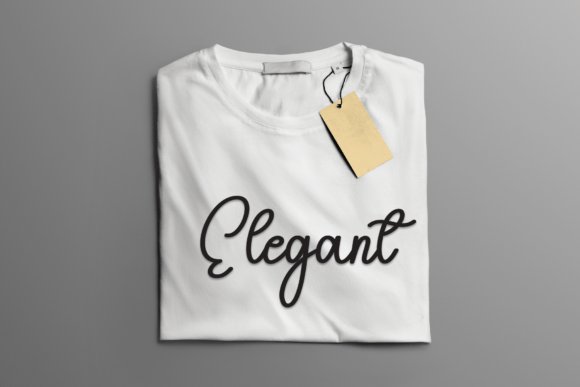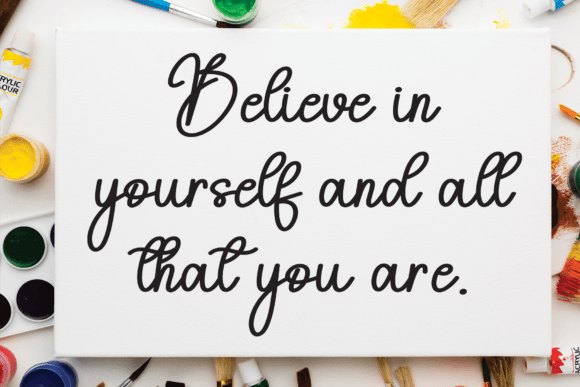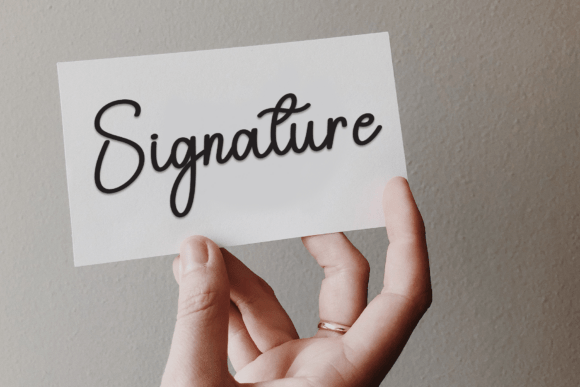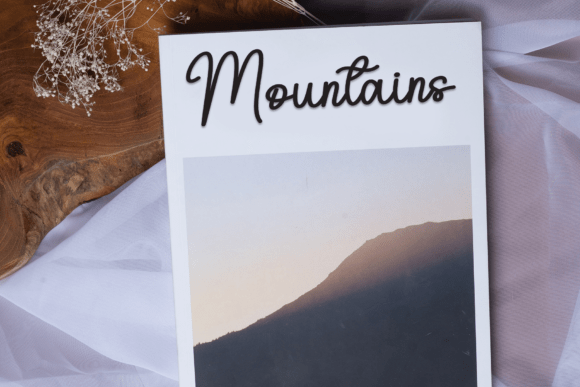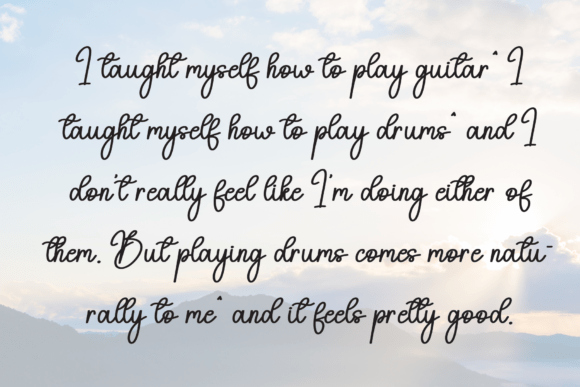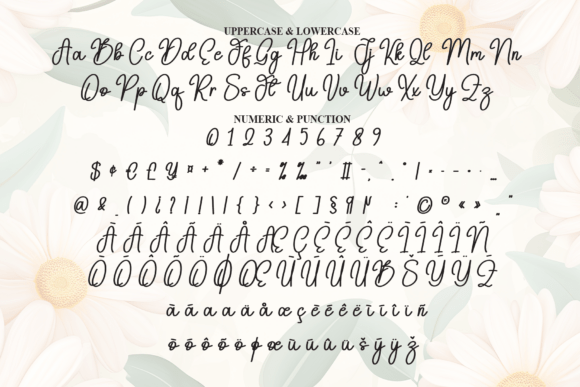
The Sweet Spot: Discovering the Delightful Daisy Font
I’ll never forget the time I was working on a wedding invitation project, and my client asked for a font that was “sweet, playful, and romantic.” I scoured the internet, tried out dozens of fonts, but nothing seemed quite right. That was until I stumbled upon the lovely Daisy Font. It was like a breath of fresh air – charming, friendly, and infused with a warmth that perfectly captured the essence of the occasion. In this article, I’ll share my experience with Daisy Font, its features, and how to make the most of it in your designs.
- ✨ Delightfully friendly and handwritten feel
- ✅ Perfect for wedding invitations, heartfelt cards, and designs that need a fun touch
- 💕 Exudes sweetness and warmth, making it ideal for romantic and whimsical projects
- 🎉 Playful and charming, adding a delightful twist to any design
While Daisy Font is an excellent choice for many projects, there are a few things to keep in mind:
- ⚠️ Limited use of uppercase letters, which might not be suitable for all designs
- 🤔 Some users might find the font a bit too playful for formal or corporate projects
A Practical Guide: Using Daisy Font in Your Designs
The Story Behind Daisy Font
While the origins of Daisy Font are unclear, it’s easy to imagine a designer sitting in a sunny garden, surrounded by flowers and inspiration. Perhaps they wanted to create a font that captured the essence of a warm summer day, with all its joy and playfulness. Whatever the story, Daisy Font has become a beloved choice for designers and crafters alike.
Q: What type of projects is Daisy Font best suited for?
A: Daisy Font is perfect for wedding invitations, heartfelt cards, and designs that need a fun, playful touch.
Q: Does Daisy Font support OpenType features?
A: Yes, Daisy Font supports OpenType features, including ligatures and stylistic alternates, which can add more character to your text.